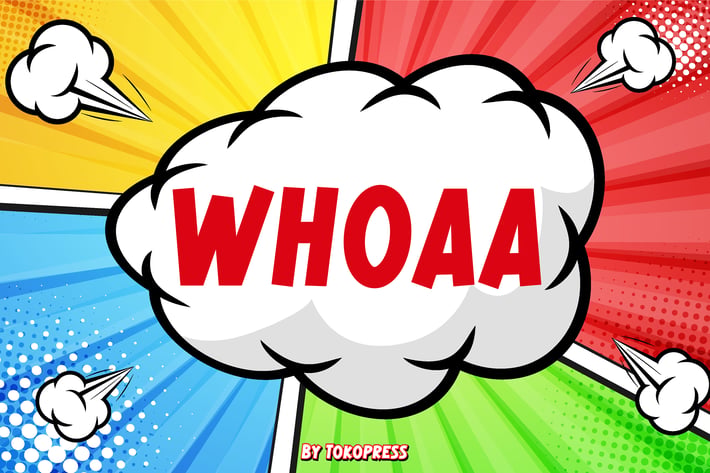
Cartoon Font - Whoaa
Whoaa
WHOAA is a bold comic-style display typeface with punchy proportions, loud contrast, and heroic visual energy—perfect for action branding and epic storytelling.
With thick outlines, sharp terminals, and exaggerated curves, WHOAA channels the dynamic language of classic comic books and superhero pop culture. Its high-impact appearance, inspired by vintage pulp designs, makes it perfect for head-turning posters, dramatic covers, or expressive gaming UIs. This is a font that shouts—designed for maximum presence, not quiet elegance.
Whether you're launching a kids comic, designing promotional artwork for a superhero-themed game, or branding toys with explosive appeal, WHOAA delivers the impact your designs demand. It's made for designers who want to evoke power, movement, and fun in a single glance. Perfect for use in pop culture branding, editorial layout, movie-themed packaging, or YouTube thumbnails with flair.
Key Features :
Supercharged Display Energy
Built with dynamic letter shapes, strong structure, and powerful line weight—ideal for action themes.
Heroic Character Style
Every glyph feels like a character ready to leap off the page—great for loud branding and comics.
Maximize Visual Impact
Stands out in thumbnails, headlines, posters, stickers, or UI buttons that need high attention value.
Clean and Legible Design
Despite its bold weight, WHOAA remains legible even in tight compositions thanks to smart spacing.